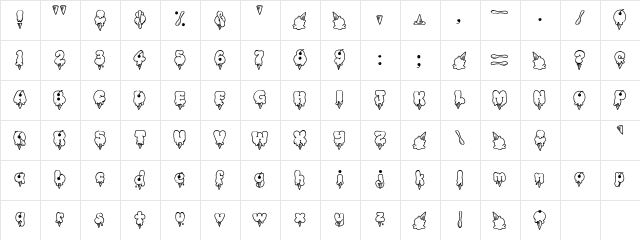
CK Ice Cream Cone Regular
Design Context for CK Ice Cream Cone Typeface
CK Ice Cream Cone is a composed and adaptable typeface that performs quietly and consistently across a wide range of design contexts.